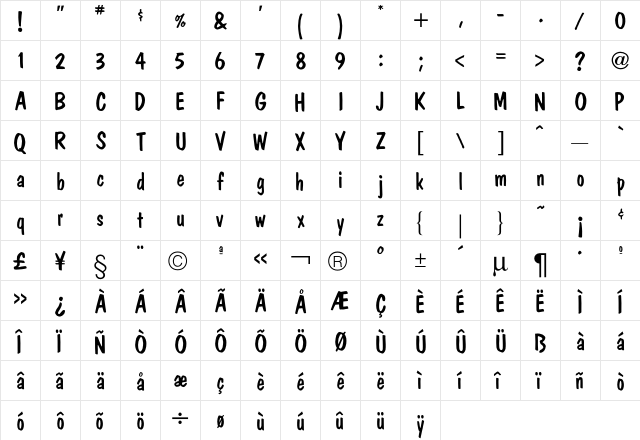
Dom Casual
Design Context for Dom Typeface
Dom is a composed and adaptable typeface that performs quietly and consistently across a wide range of design contexts.